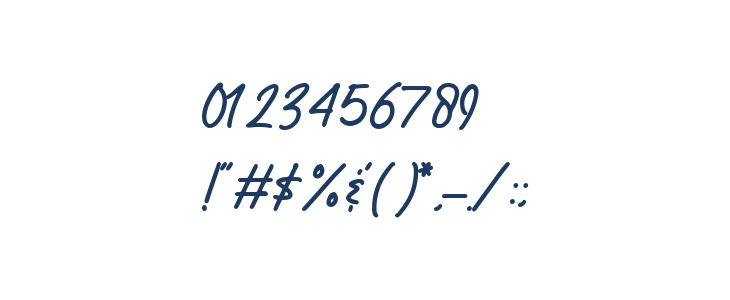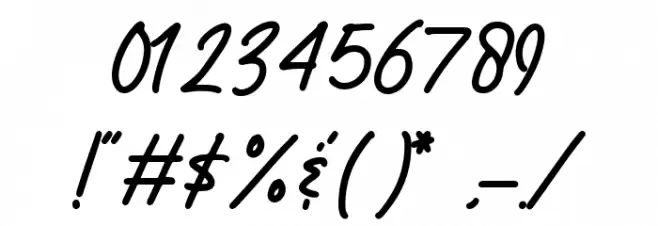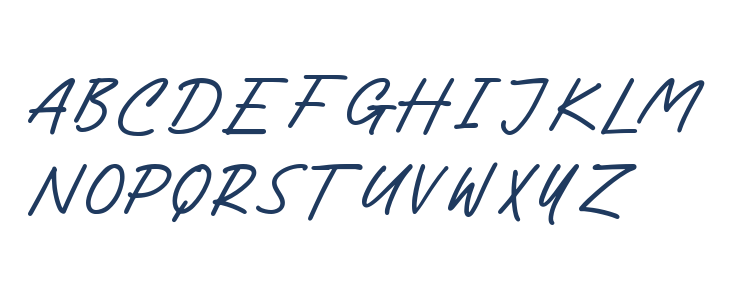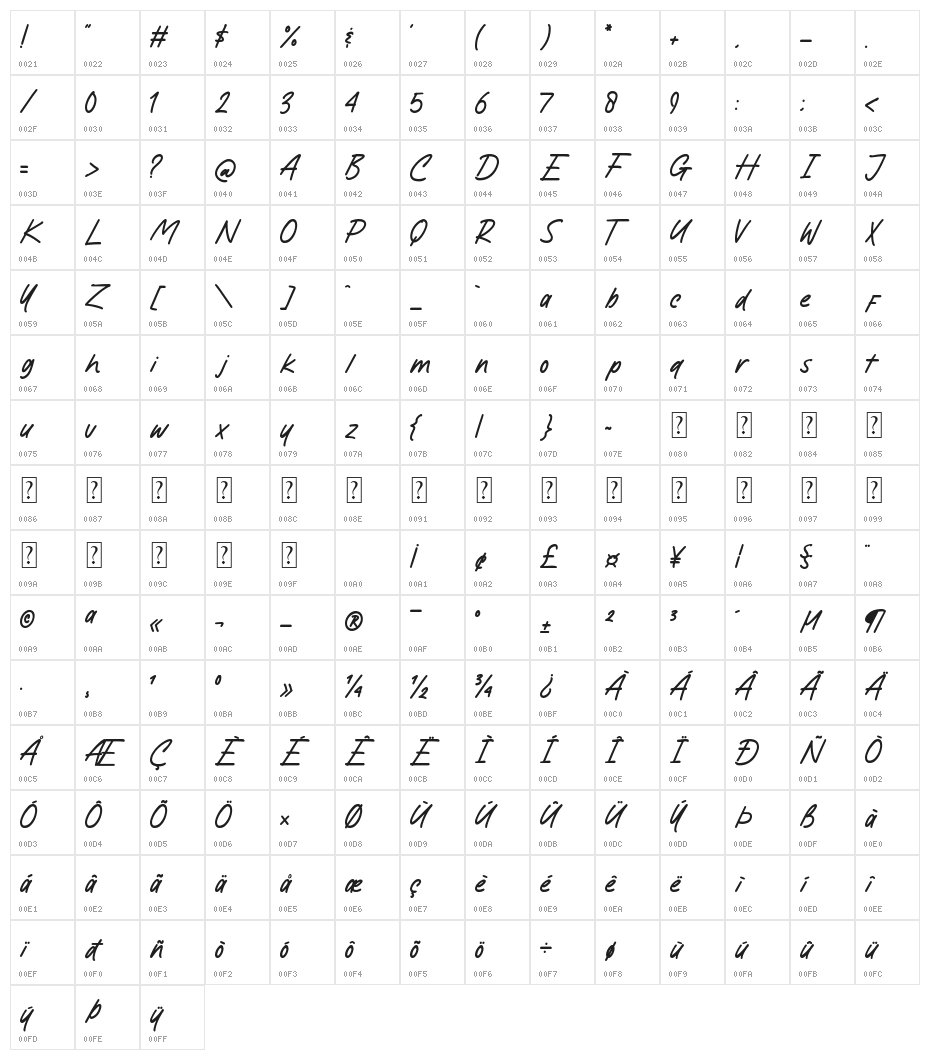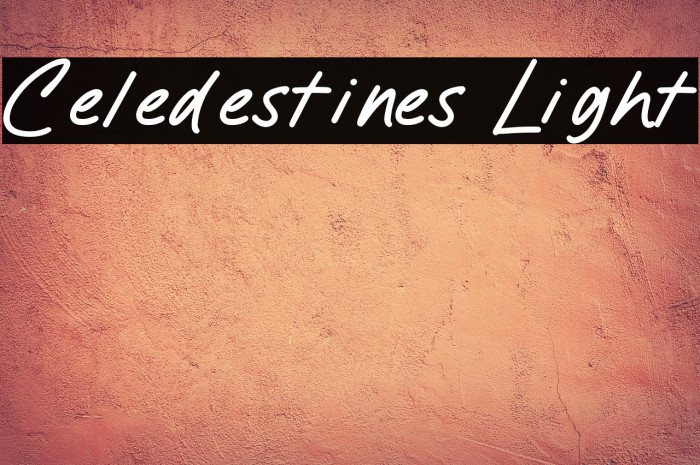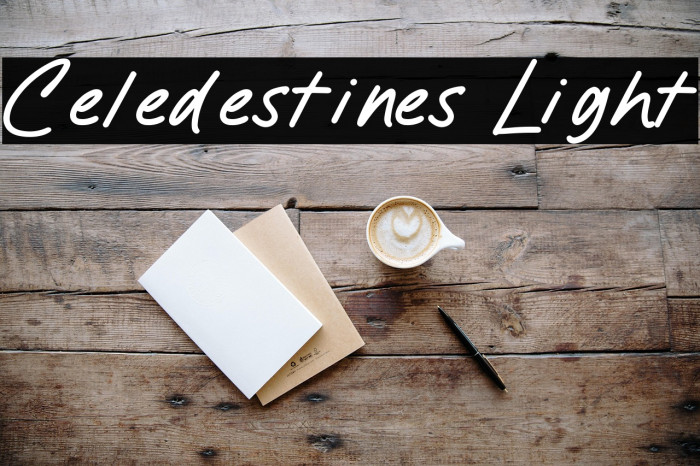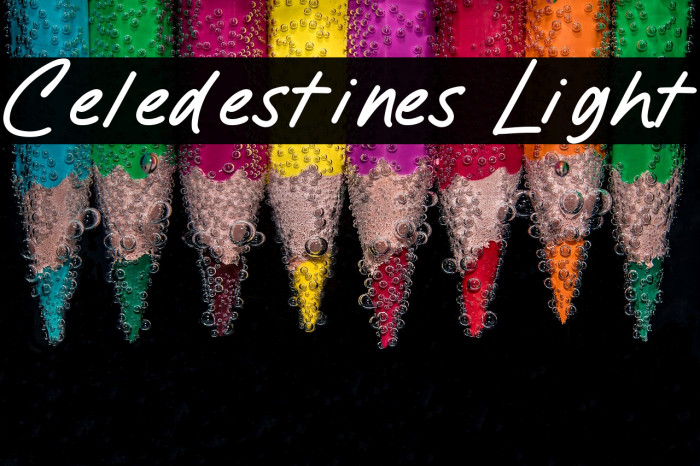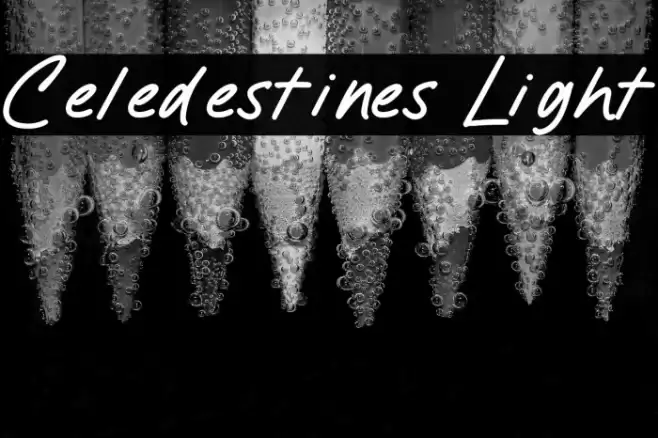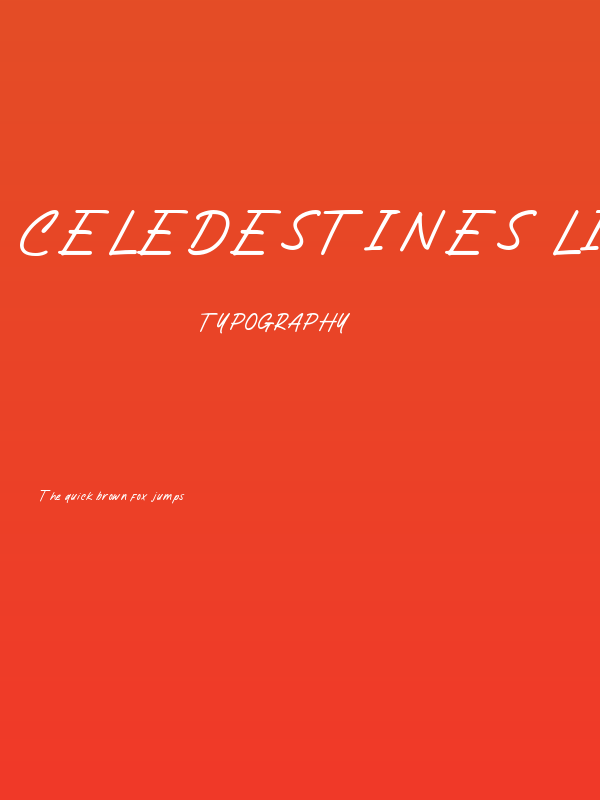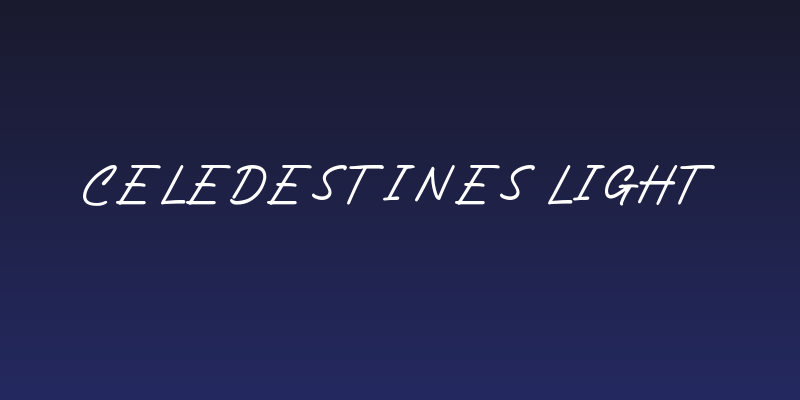
Celedestines Light Font
Celedestines Light Description
A casual, handwritten cursive font with a smooth, flowing style.
| Overall Style | Casual, Handwritten |
| Use Case | Personal projects, invitations, greeting cards, branding |